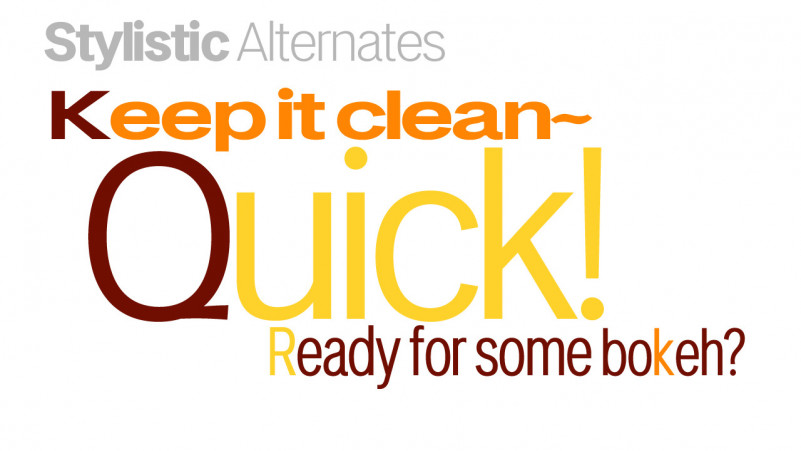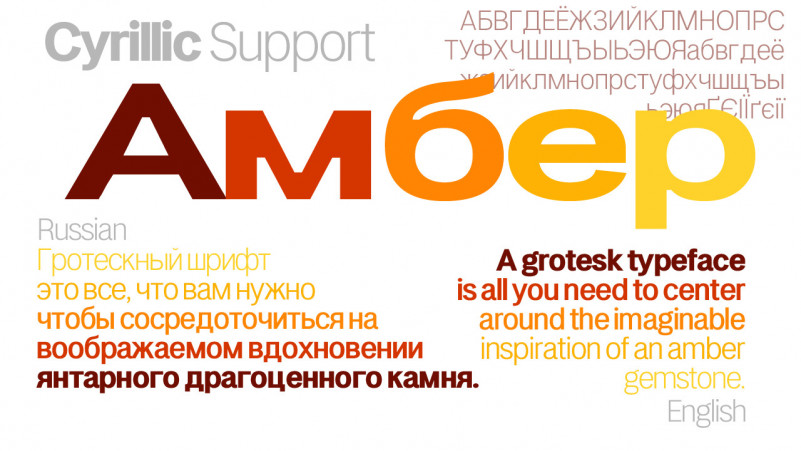
LT Amber Sans Serif Font
LT Amber Sans Serif Font is a free casual sans serif font. It’s designed and shared by LyonsType. This beautiful and professional typeface is suitable for film posters, headlines, block letters, subheadings, logo designs, and so much more.